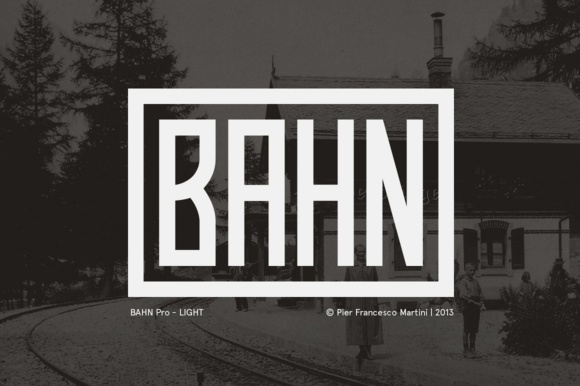
Journey back in time with Bahn Pro Light, a display font that captures the essence of vintage railway signs. Experience the nostalgia of a bygone era as you design projects that evoke a sense of history and adventure. This font's tall and slender characters, reminiscent of old Austrian Bahn signs, add a touch of retro charm to any project.
Bahn Pro Light is a versatile font, perfect for creating eye-catching headlines, posters, and branding materials. Its clean lines and distinct letterforms make it easy to read, even at small sizes. Whether you're designing for print or digital media, Bahn Pro Light will add a touch of elegance and sophistication to your work.
Step into the world of Bahn Pro Light and explore the endless possibilities it offers. Create designs that transport your audience to another time and place, capturing their attention and leaving a lasting impression. Let Bahn Pro Light be your creative companion, guiding you on a journey of visual storytelling.
With Bahn Pro Light, you'll have the power to:
* Design captivating headlines that demand attention
* Craft posters that evoke a sense of nostalgia and adventure
* Create branding materials that exude elegance and sophistication
* Add a touch of retro charm to any project
Bahn Pro Light is more than just a font; it's a gateway to a world of creative possibilities. Embrace its vintage charm and embark on a journey of design excellence.